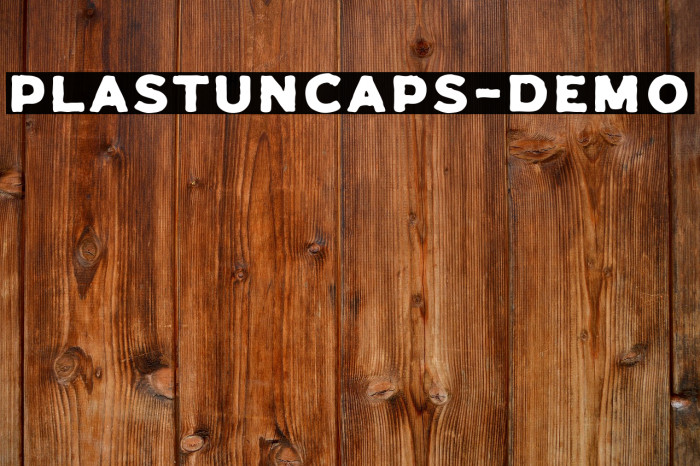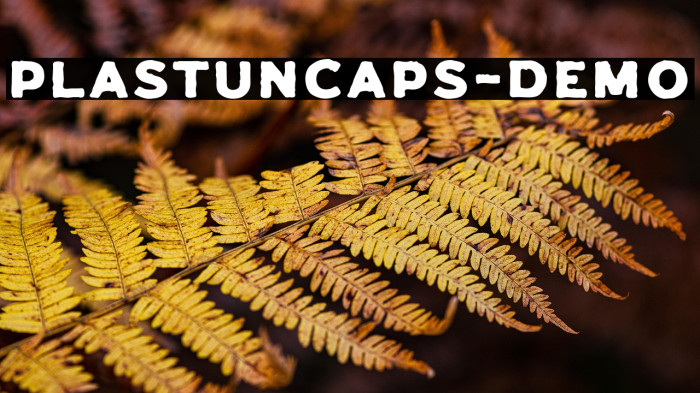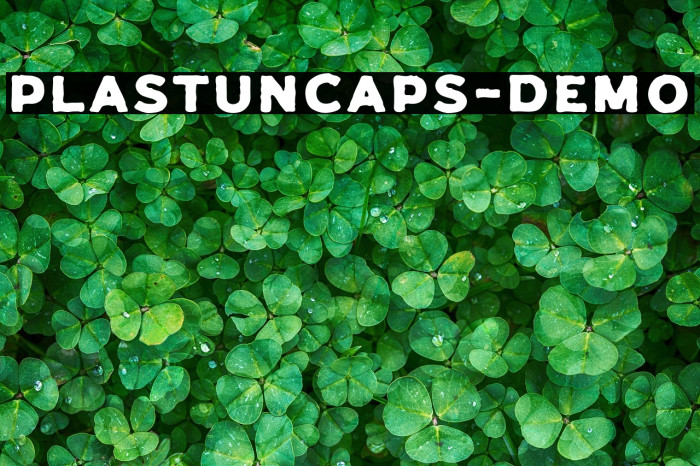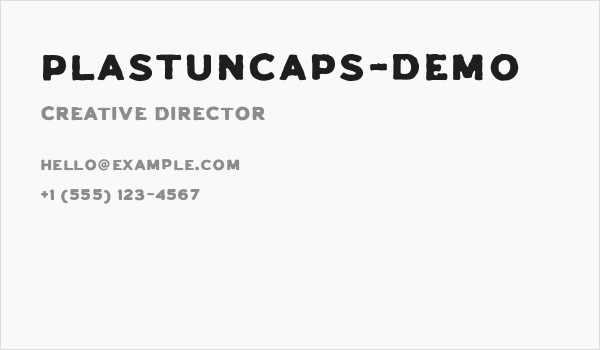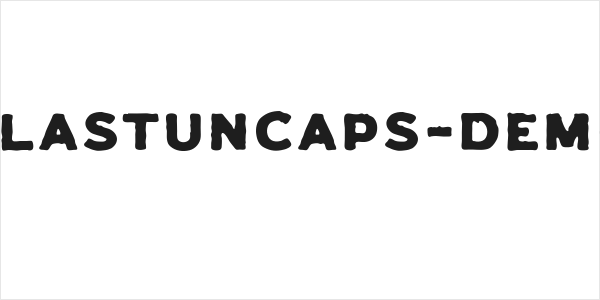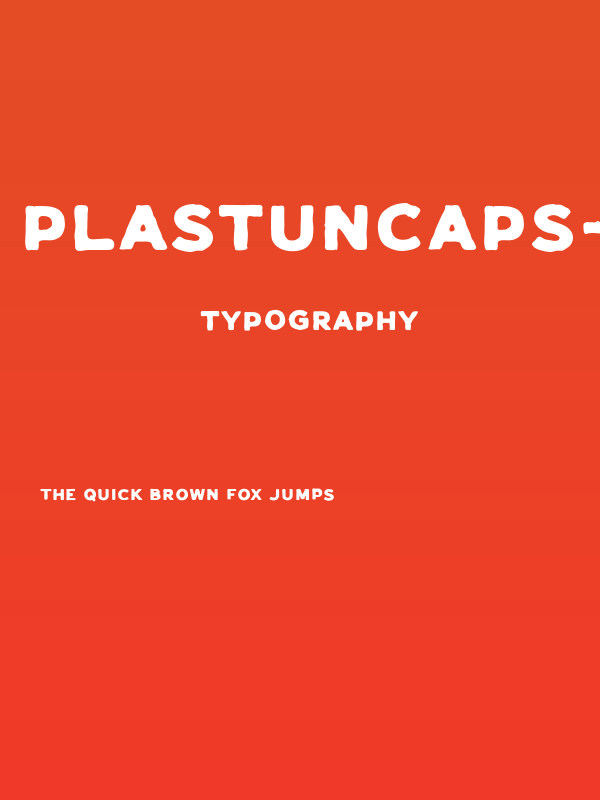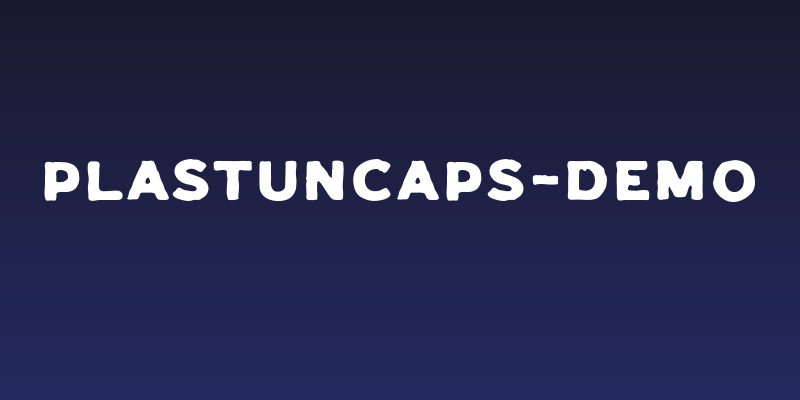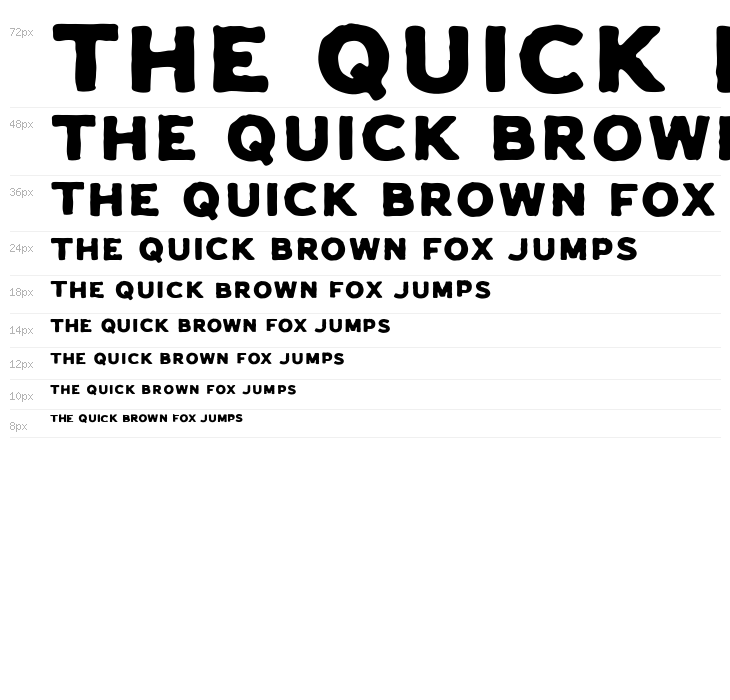
PlastunCaps-Demo Font
PlastunCaps-Demo Description
This font features a bold and playful design with a hand-drawn aesthetic. The characters are thick and rounded, giving them a friendly and approachable appearance. The uppercase and lowercase letters maintain a consistent style, with a slightly irregular form that adds to the font's charm. The numbers and special characters are equally bold, ensuring readability and visual impact. The overall look is casual yet impactful, making it suitable for a variety of creative projects.
| Overall Style | Playful, Hand-drawn |
| Proposed Projects | Ideal for children's books, playful branding, posters, and creative invitations. |